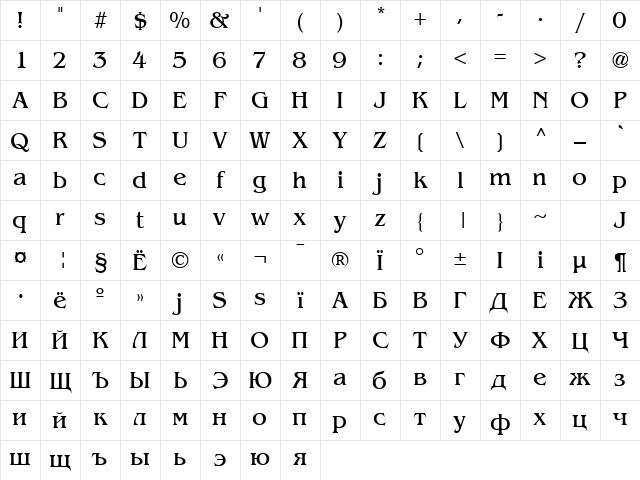
AGBengaly Normal
Design Context for AGBengaly
AGBengaly is a composed and adaptable typeface that performs quietly and consistently across a wide range of design contexts.